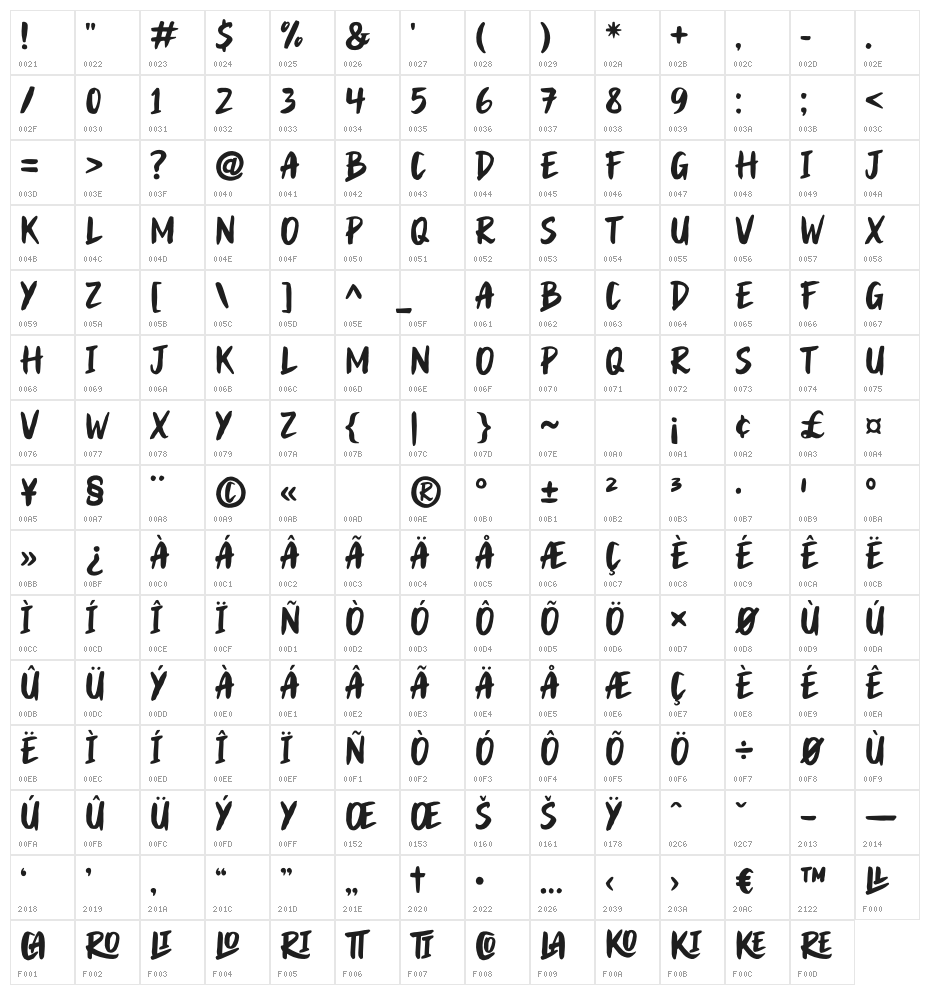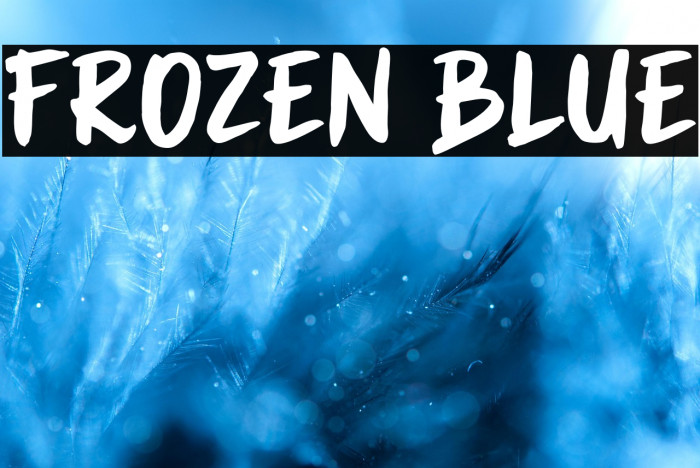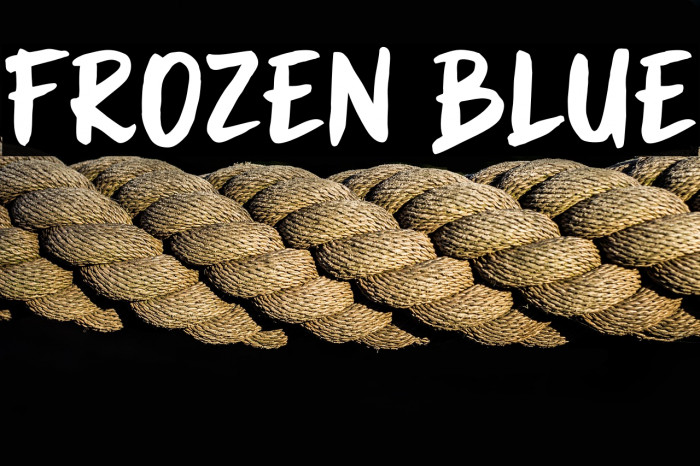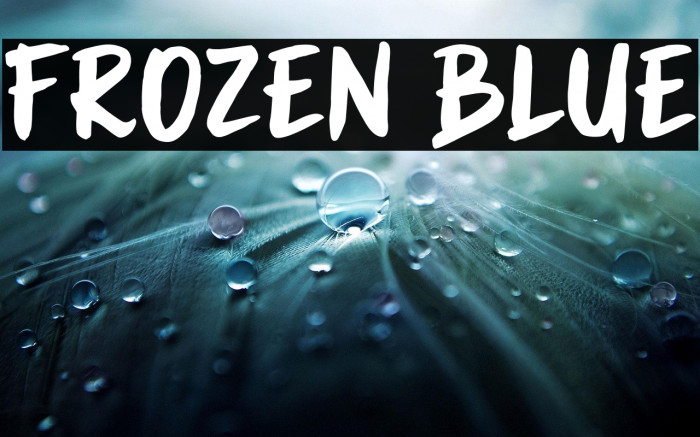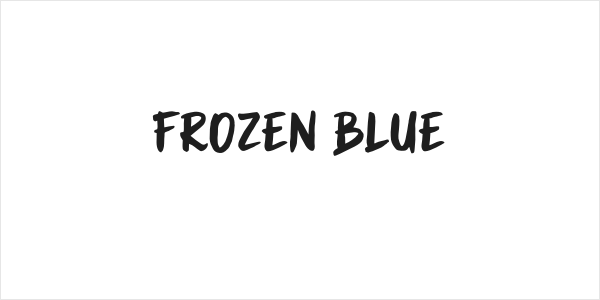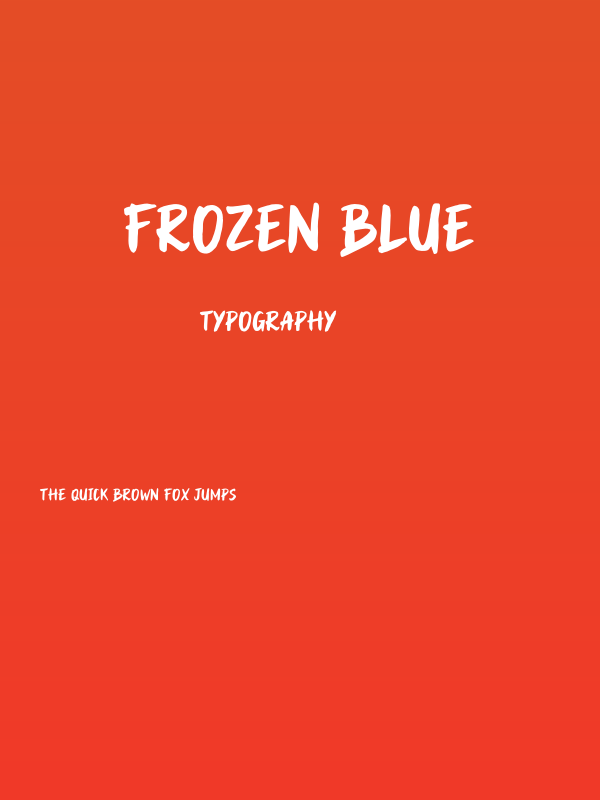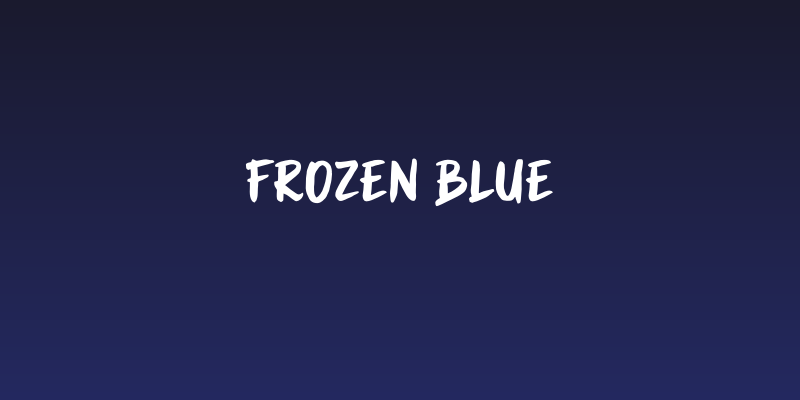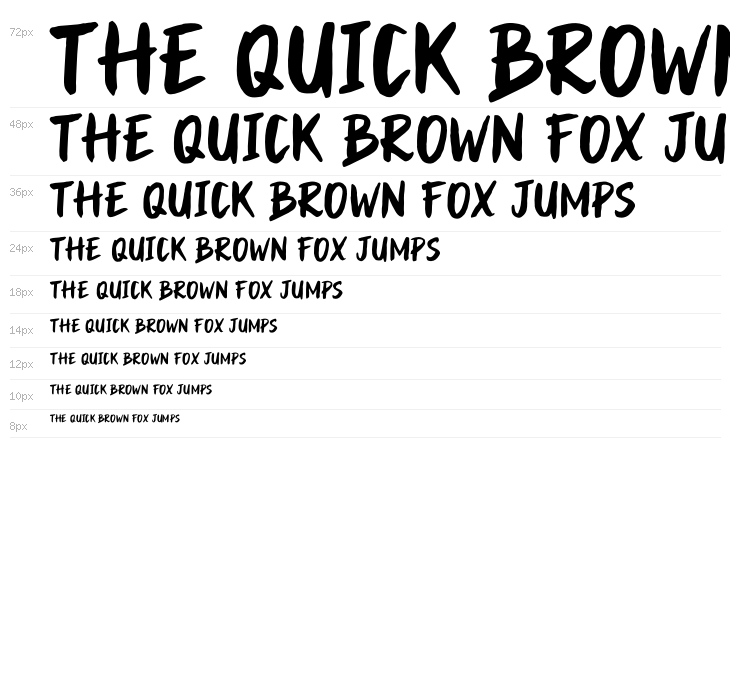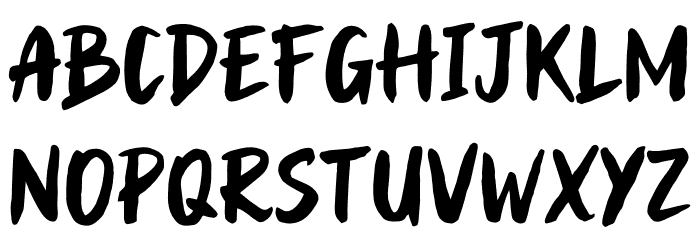
Frozen Blue Font
Frozen Blue Description
This font exudes a bold and energetic style with its thick, brush-like strokes that give it a handwritten appearance. The characters are slightly slanted, adding a dynamic and informal feel. The uppercase and lowercase letters maintain a consistent weight, contributing to a cohesive look. The numbers and special characters follow the same stylistic approach, ensuring uniformity across all glyphs. Its playful yet assertive design makes it suitable for projects that require a personal touch while still maintaining readability.